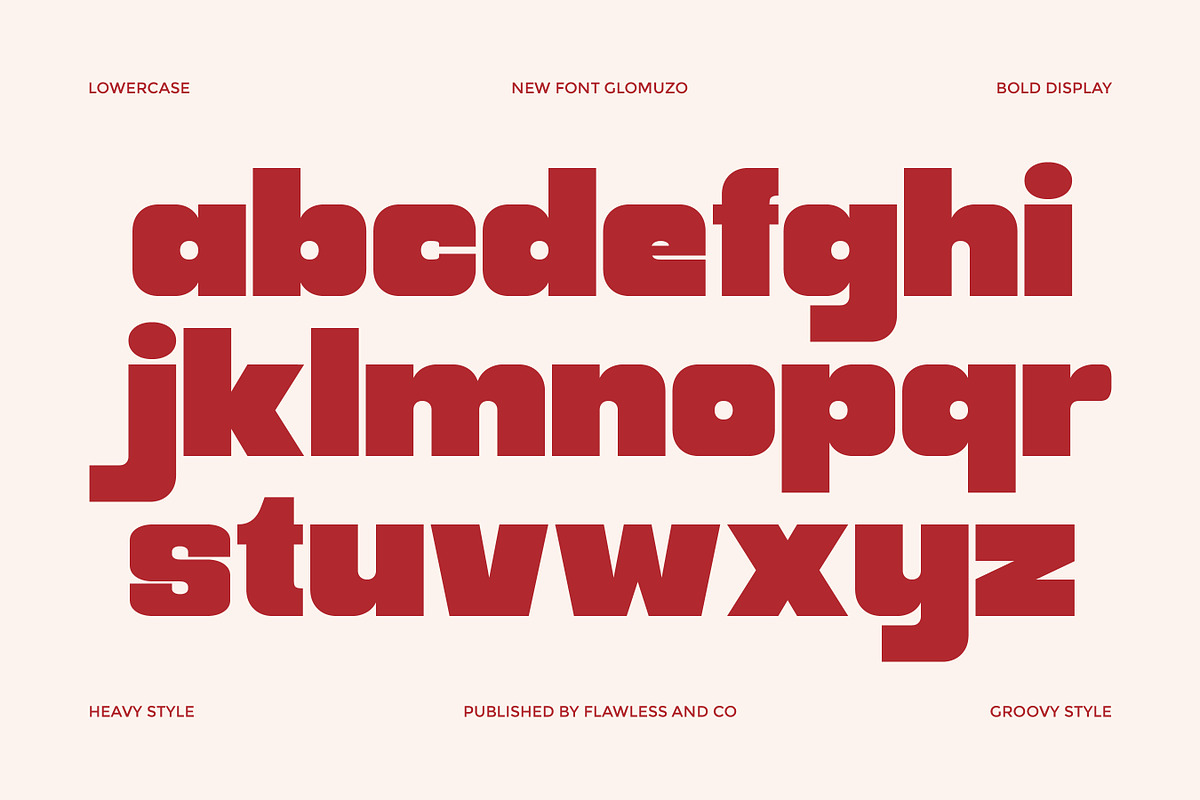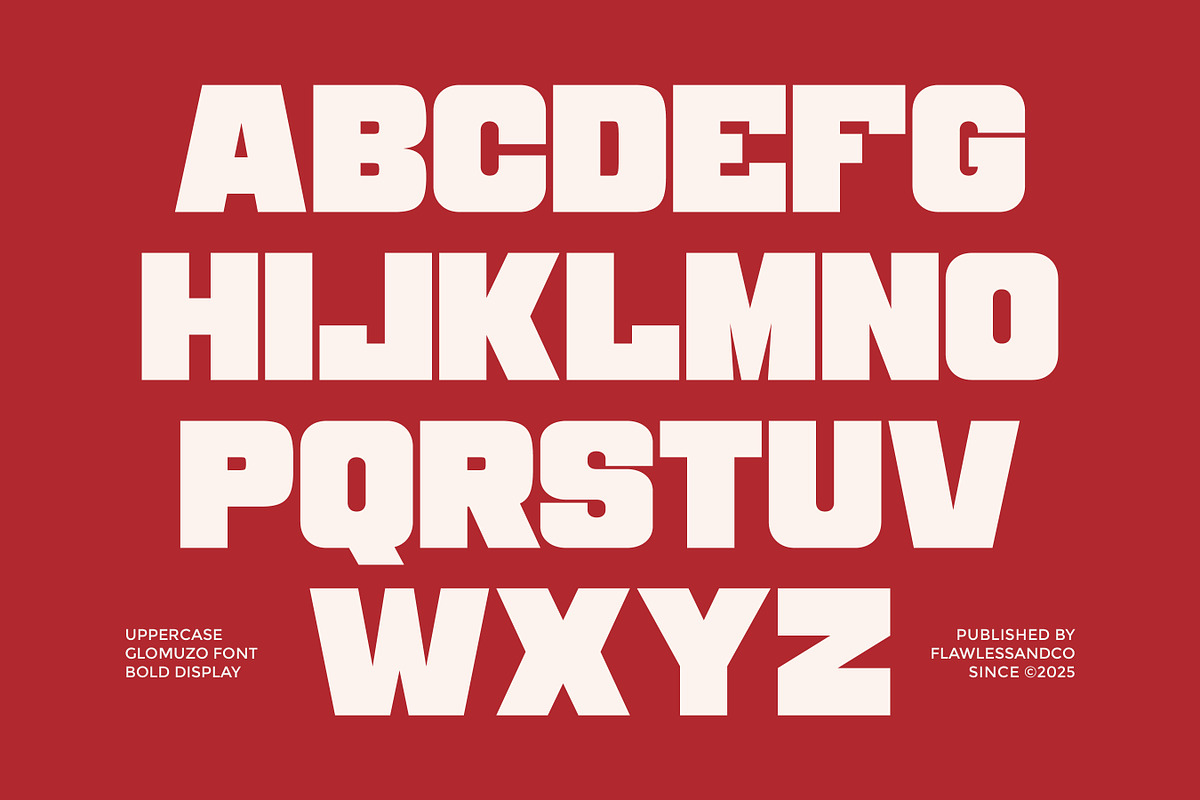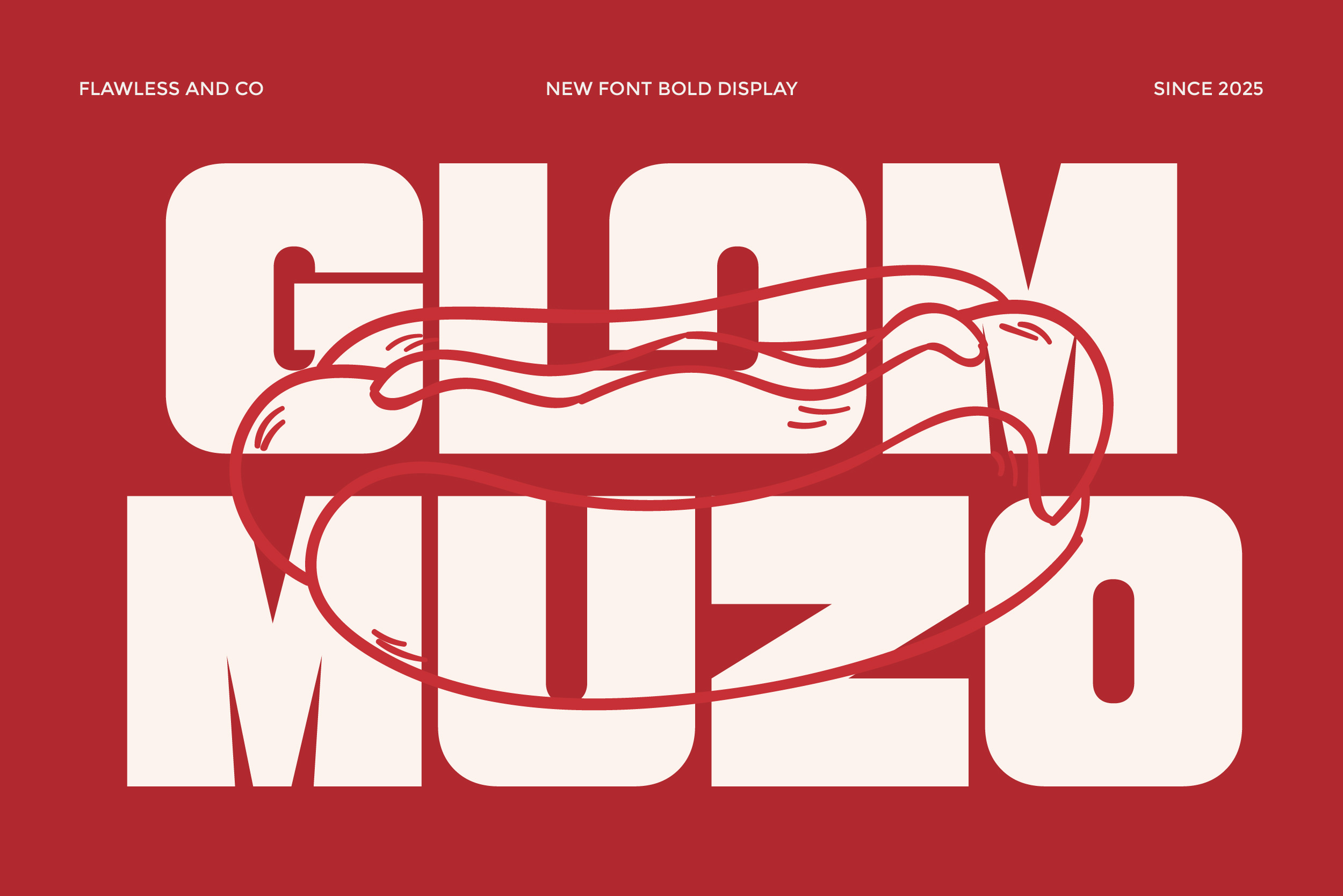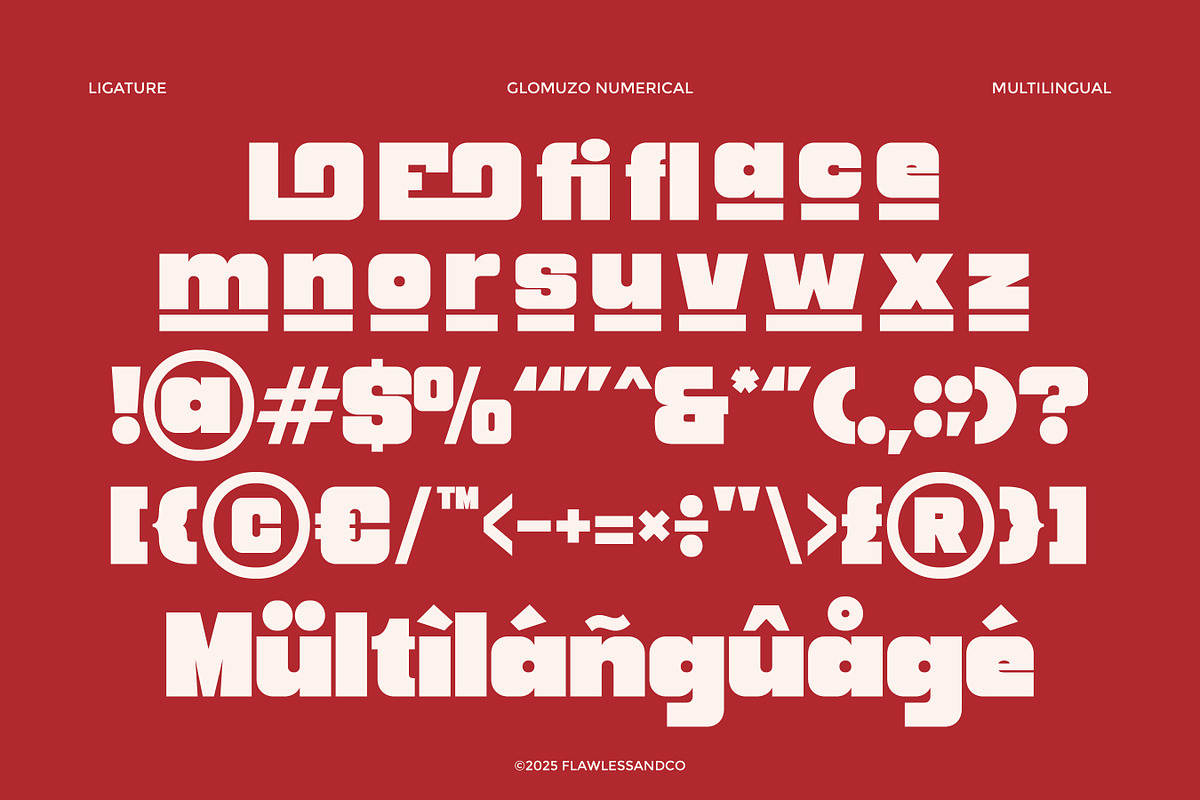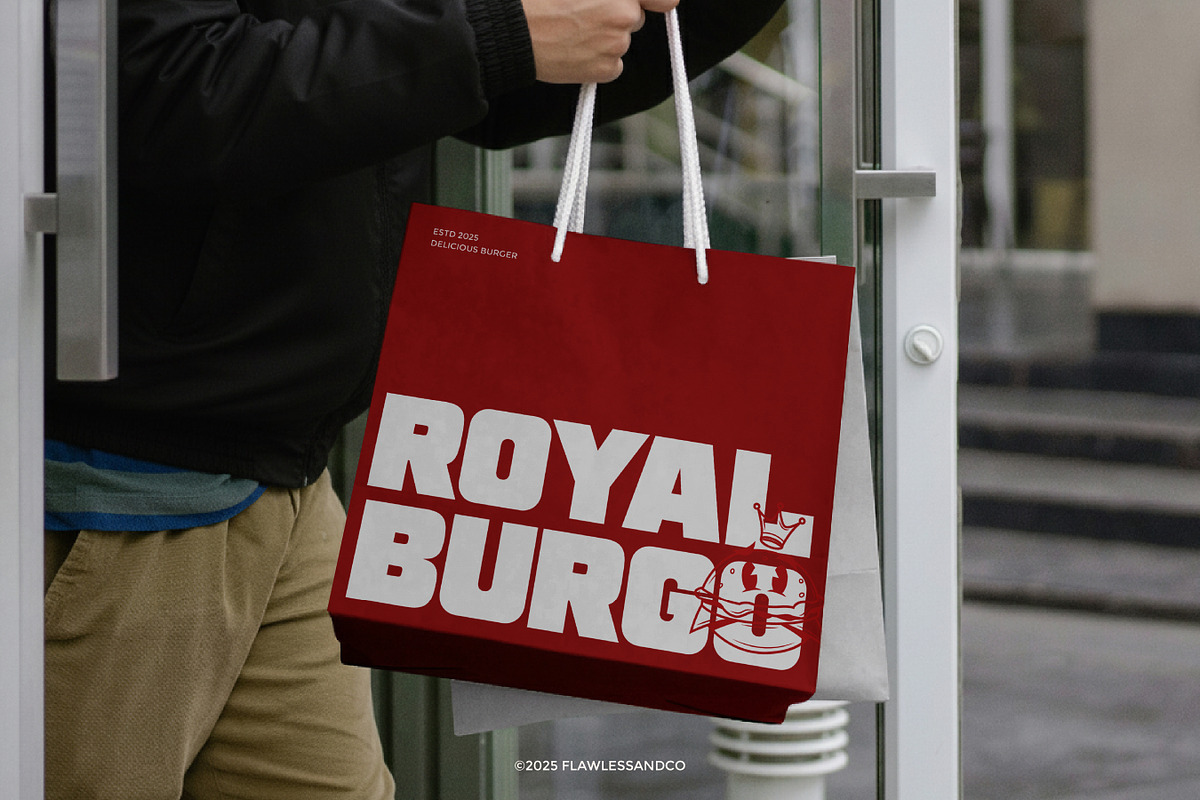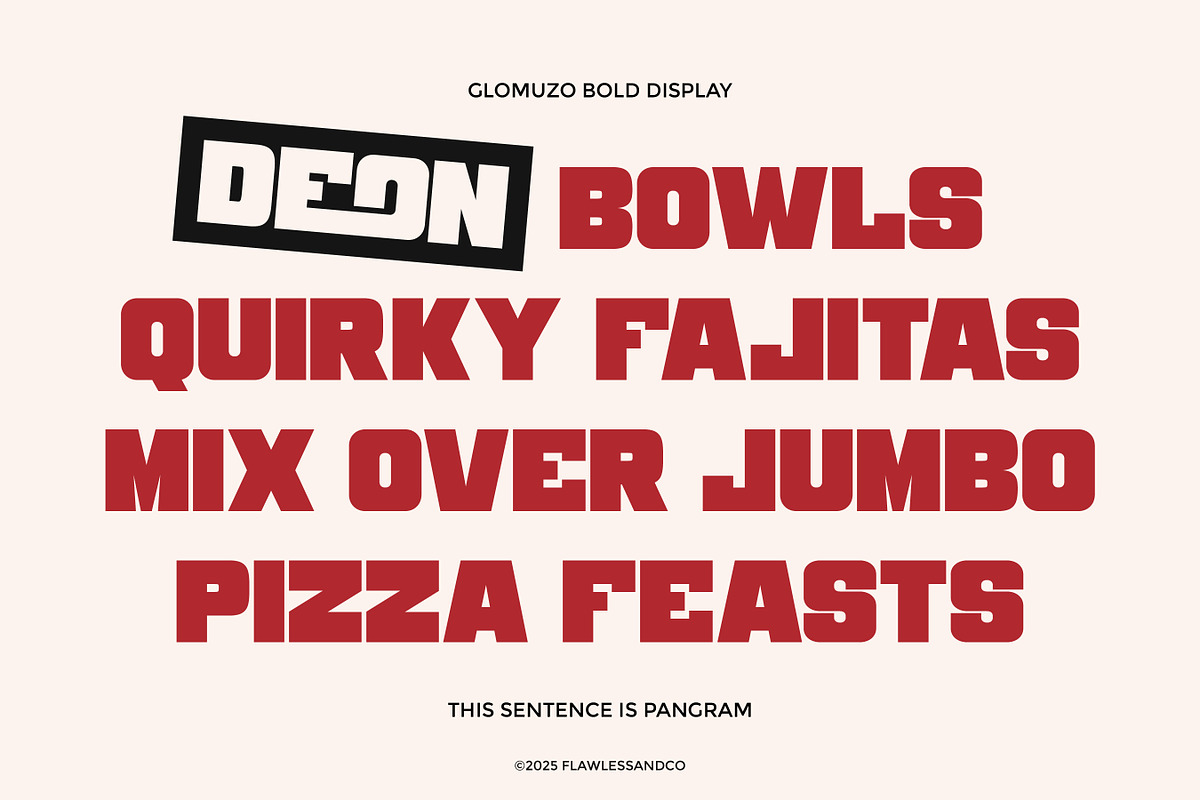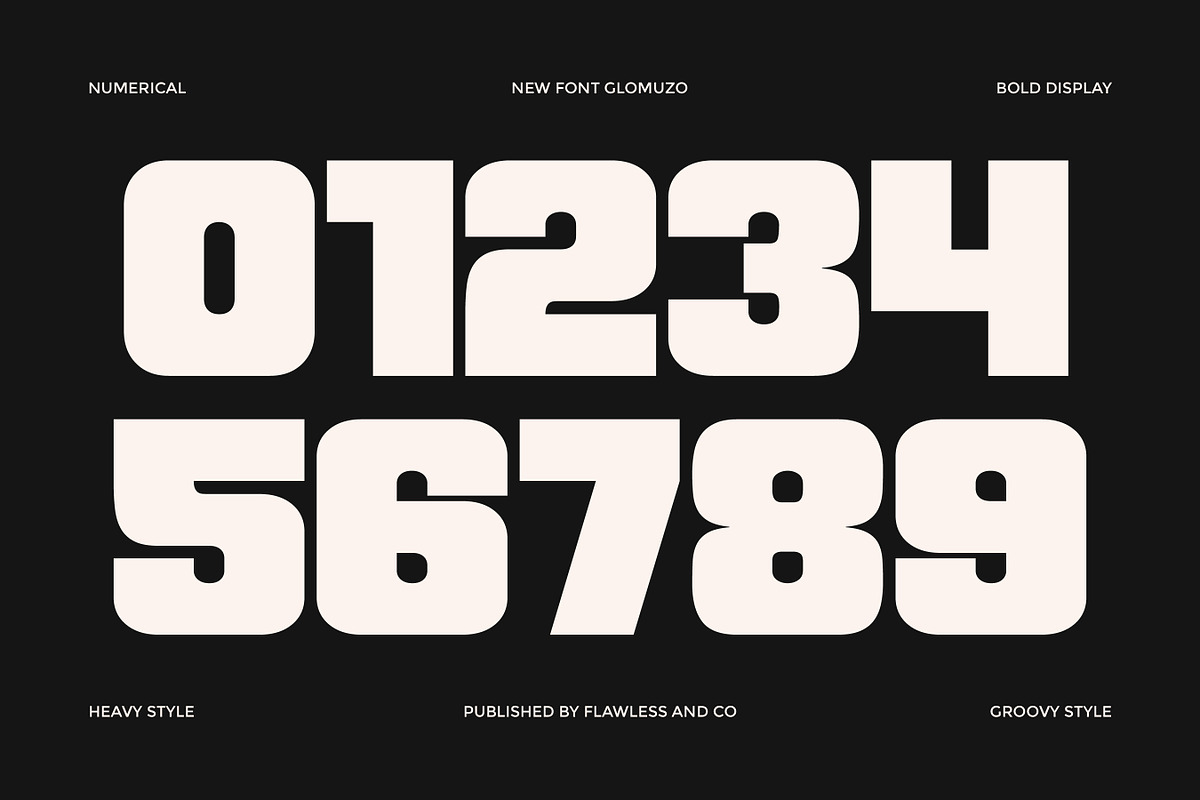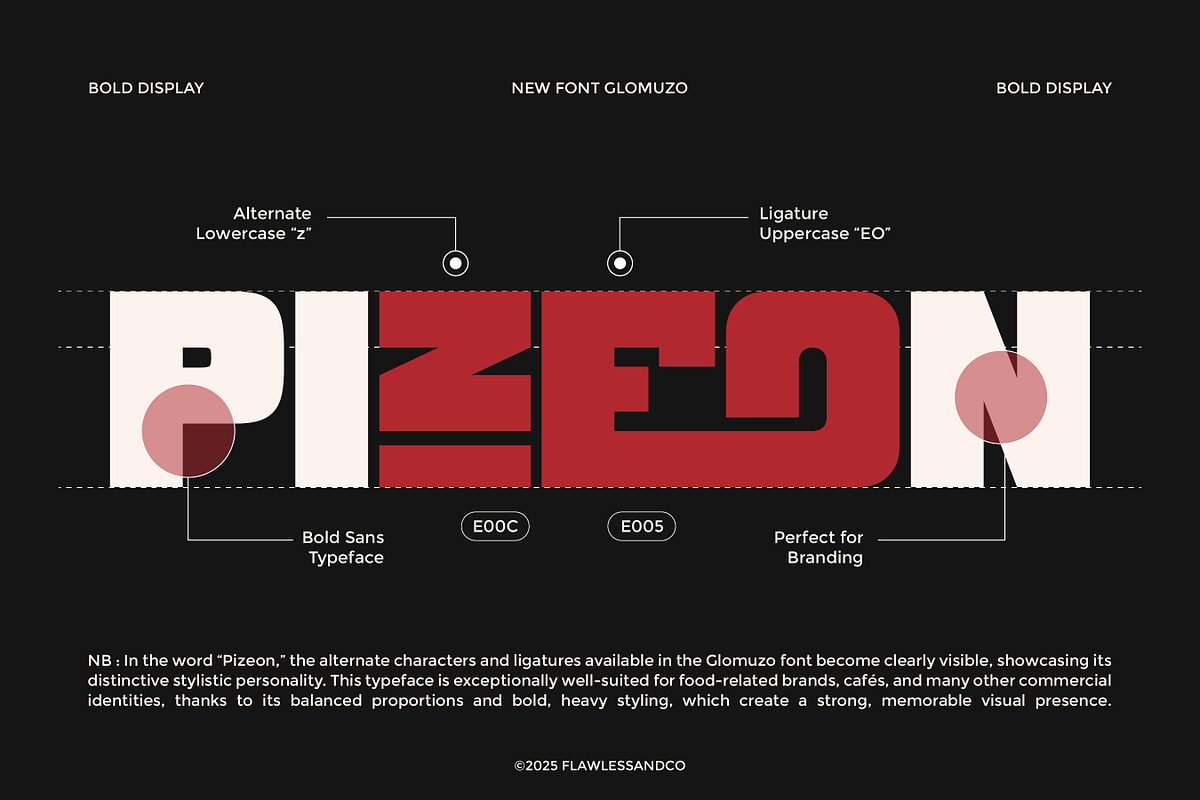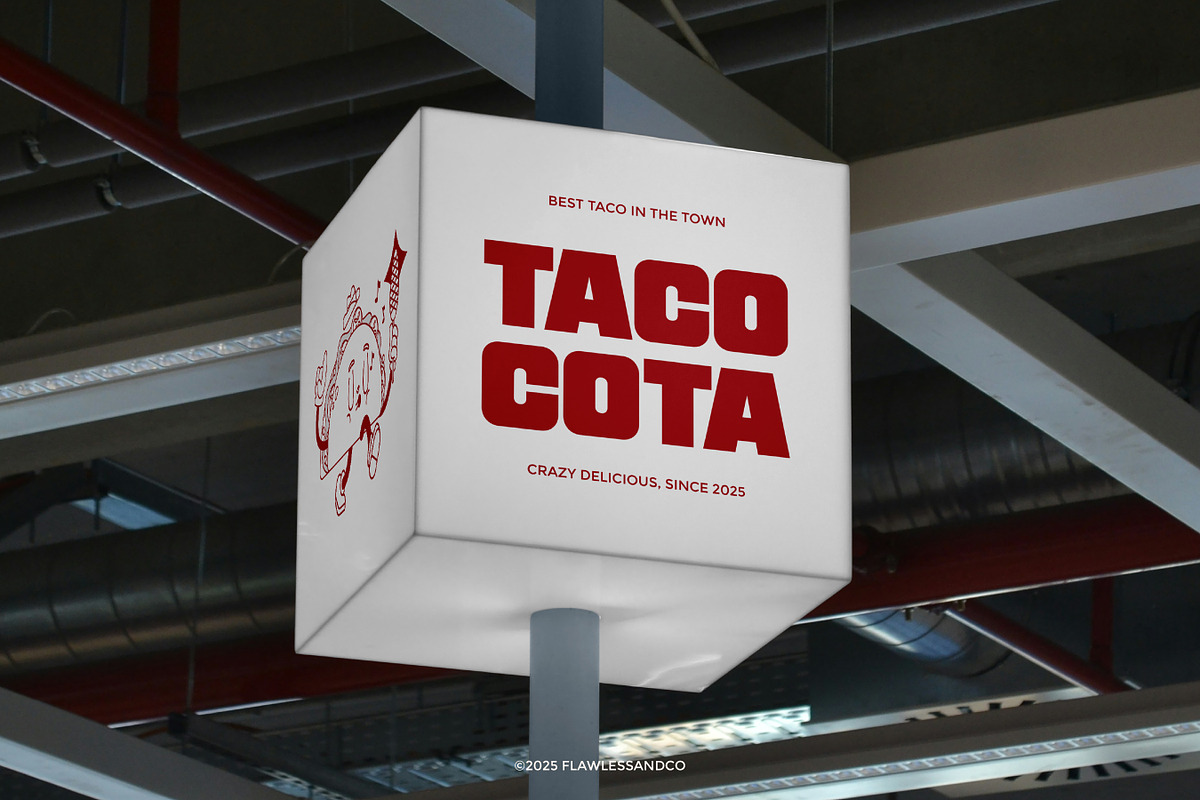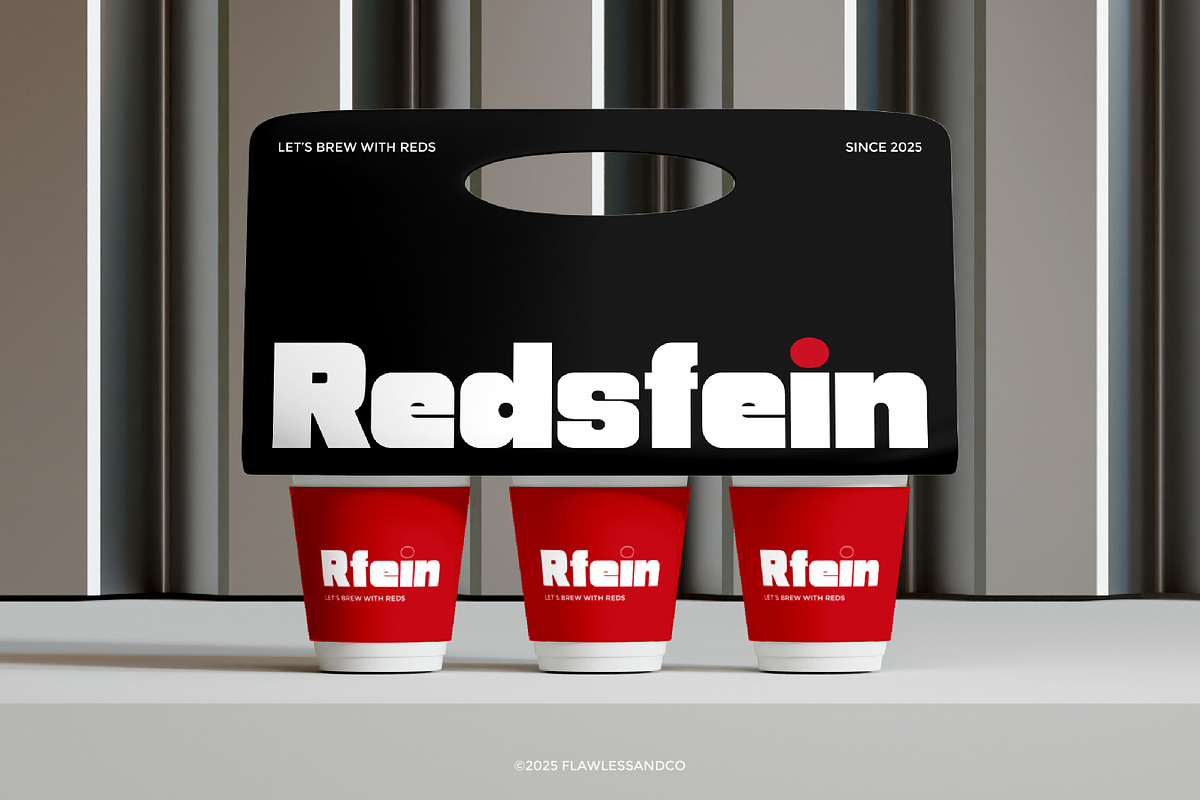
Glommuzo - Bold Display Font
Glommuzo is a bold display font that brings strong visual power and unforgettable character to every design. With thick letterforms, condensed proportions, and a confident modern attitude, Glommuzo is built to command attention instantly. Every stroke embodies impact, energy, and style — making your typography stand out loud and clear. Perfect for titles, branding projects, posters, merchandise, sports graphics, editorial layouts, packaging, and anything that needs a bold and fearless statement.
Who Should Use Glommuzo?
Glommuzo is the perfect font for designers and creators who want their message to be bold, loud, and impossible to ignore. It is especially ideal for:
- Branding and logo designers who need a powerful, standout identity
- Sports and esports designers looking for energetic and masculine visuals
- Poster and headline creators who want maximum impact and readability
- Music, festival, and event designers who want striking and expressive typography
- Packaging designers who need strong shelf presence and visual intensity
- Content creators and social media designers who want attention-grabbing typography
A Must-Have Font for Brand and Logo Creators and Designers
Glommuzo is a must-have for every branding and logo designer who wants to build a bold, memorable, and high-impact visual identity. Its powerful shapes and fearless display style make it the perfect tool for crafting brands that stand out, dominate attention, and leave a lasting impression.
Why Choose Glommuzo for "Brand and Logo" Projects?
Glommuzo is designed to make brands impossible to ignore. Its bold and heavy display structure delivers instant visual impact, making every logo, headline, and packaging design feel powerful and confident. The clean yet aggressive letterforms ensure perfect readability at any size, while the strong geometric build gives every project a modern, energetic, and unforgettable identity. Whether you're creating branding for sports, streetwear, gaming, food industries, or bold commercial campaigns, Glommuzo guarantees a striking look that commands attention and sticks in people’s minds.
Suitable For
- Logo & Branding
- Gaming & Esports Identity
- Food & Beverage Packaging
- Posters & Promotional Headlines
- Merchandise & Apparel Design
- YouTube & Streaming Thumbnails
- Social Media Bold Typography
- Event & Festival Title Design